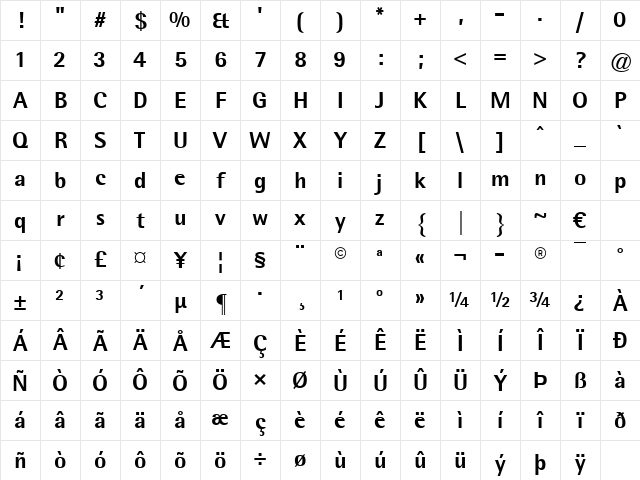
Agfa Rotis Semisans ExBold Regular
Design Context for Agfa Rotis Semisans ExBold
Agfa Rotis Semisans ExBold is a composed and adaptable typeface that performs quietly and consistently across a wide range of design contexts. Its bold stroke weight gives it real presence on the page.